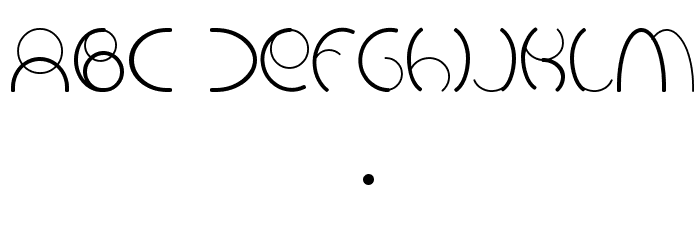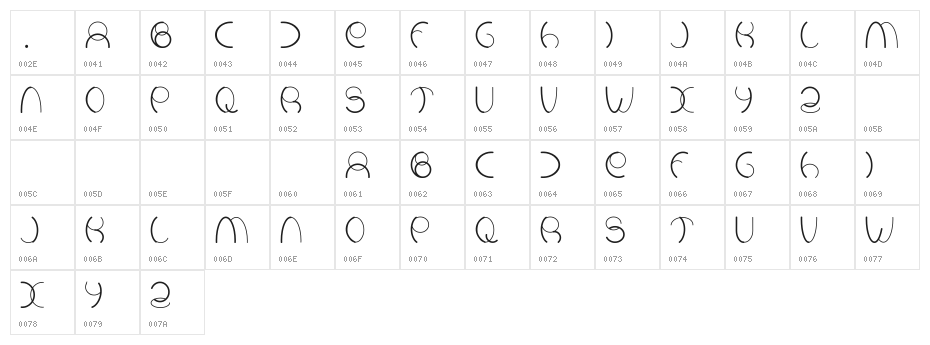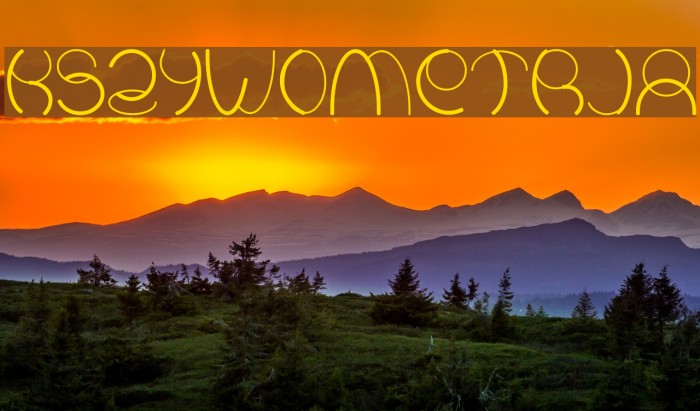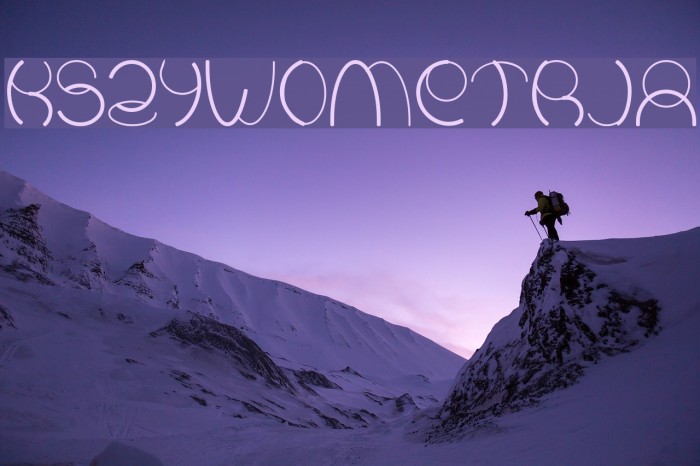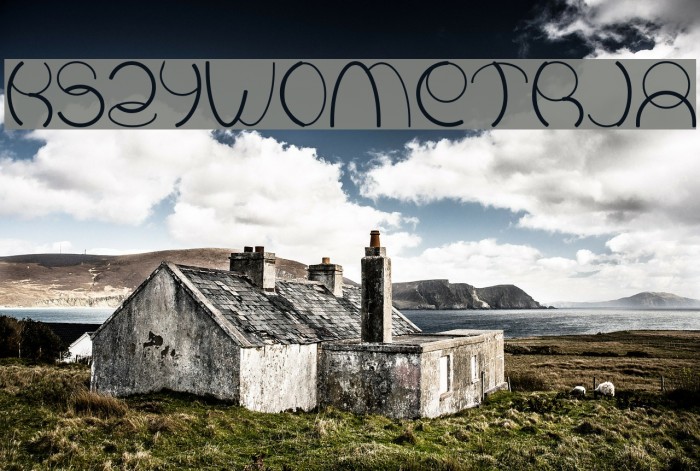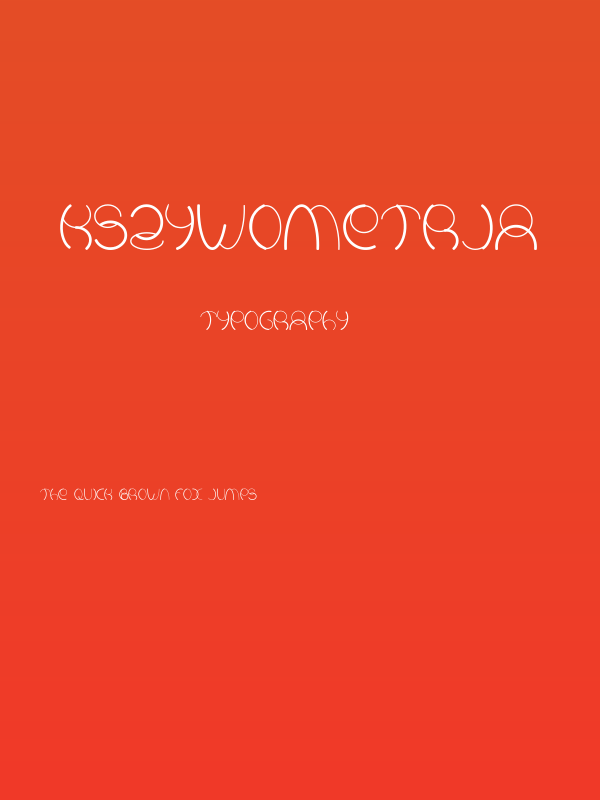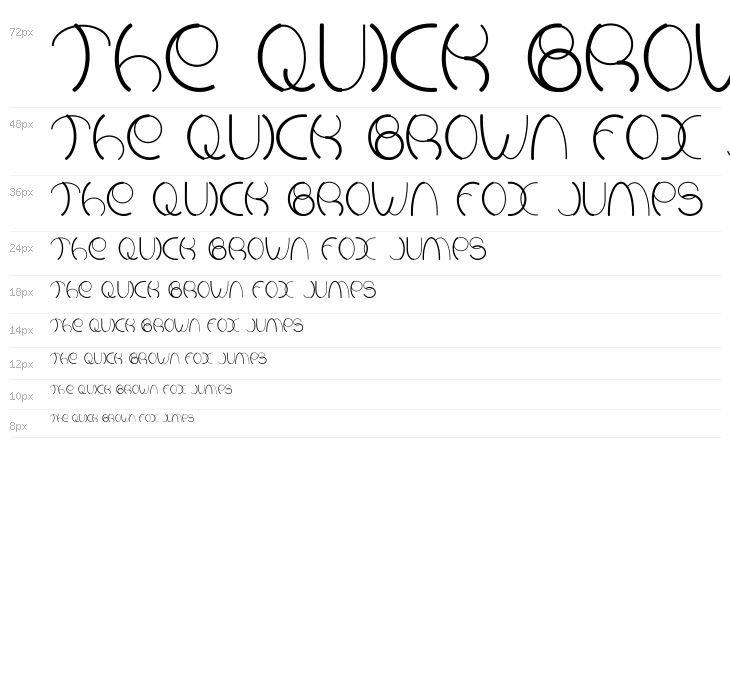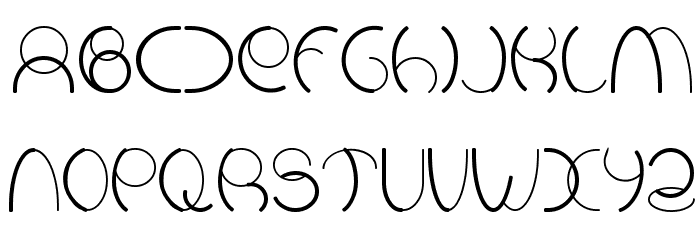
Kszywometrja Font
Kszywometrja Description
This font features a unique and artistic design with a modern twist. Each character is crafted with a combination of smooth curves and sharp angles, creating a dynamic and eye-catching appearance. The uppercase letters are particularly striking, with their bold and flowing lines that suggest movement and energy. The lowercase letters maintain the same stylistic elements, ensuring consistency throughout the typeface. The numbers and special characters are equally well-designed, fitting seamlessly with the overall aesthetic. This font is perfect for projects that require a touch of creativity and modernity.